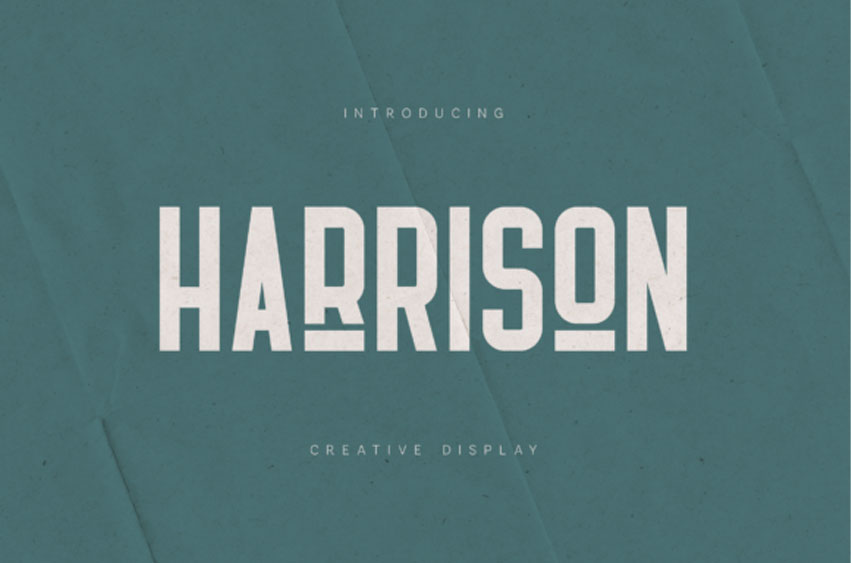
Harrison Font is a bold creative display font with a strong industrial character and a subtle vintage texture. Built with tall proportions, condensed shapes, and confident letterforms, this typeface delivers a powerful visual presence while maintaining excellent readability.
Designed for standout typography, Harrison is ideal for posters, headlines, branding, packaging, album covers, apparel, editorial layouts, and impactful graphic design projects. Its slightly distressed, retro-inspired finish adds warmth and personality, making it perfect for designs that need character without sacrificing clarity.
Harrison is made for designers who want bold expression, timeless strength, and creative flexibility in a modern display typeface.